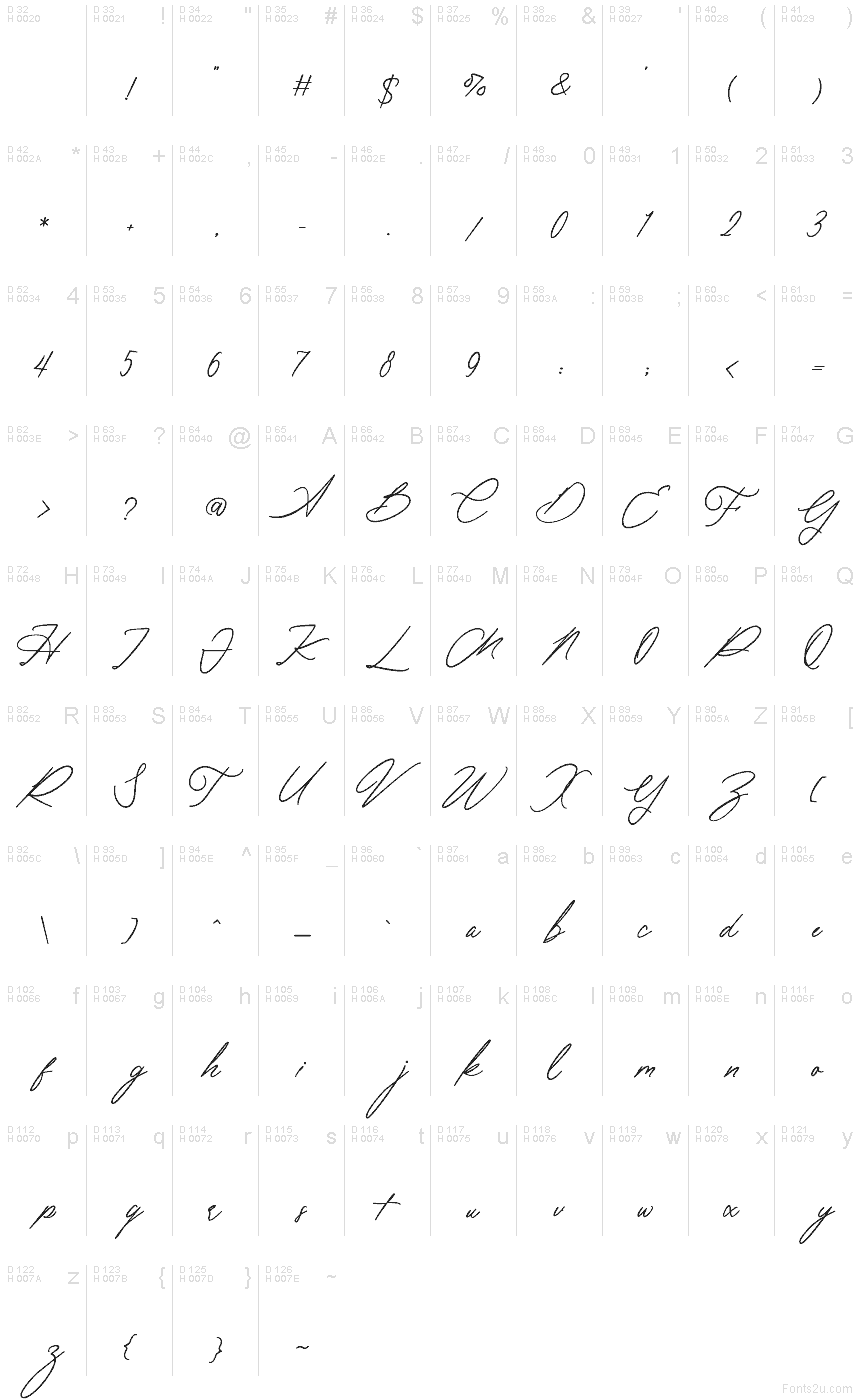
Frederick
Frederick font is a handwritten light font by Muwatta Studio whose letterforms imitate the aesthetics of a flawless signature. The elegant flow of the characters gives the font a sophisticated look that’s hard to match. Decorative, balanced, stylish – this free handwriting typeface is perfect for adding a beautiful personal touch to any design.
With Frederick font, create signature logos, watermark designs, invitation cards, branding projects, social media graphics, apparel designs, packaging design projects like mugs and bottles. Use it to also add headers to blogs or magazine spreads or get creative with typographic posters.